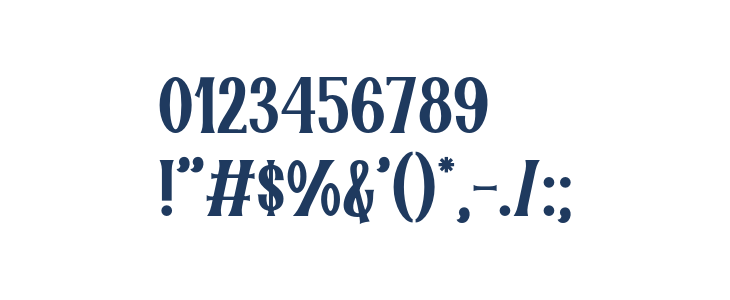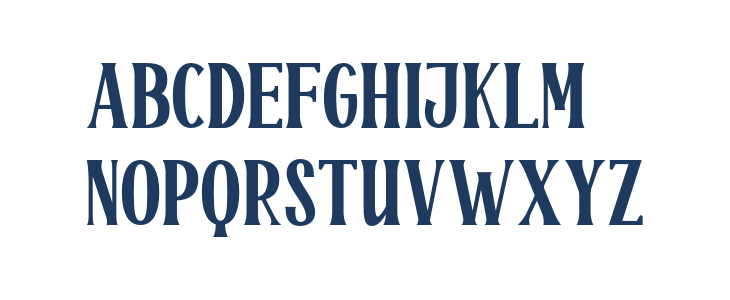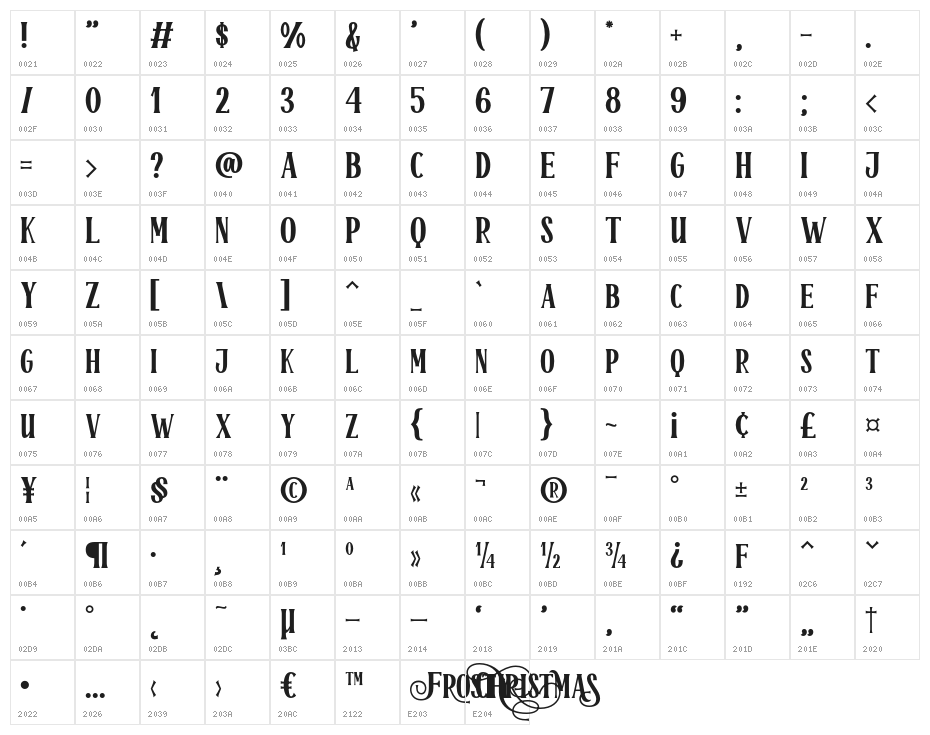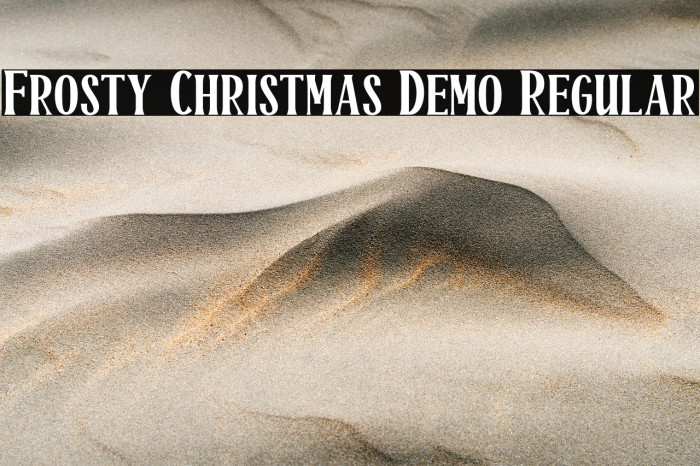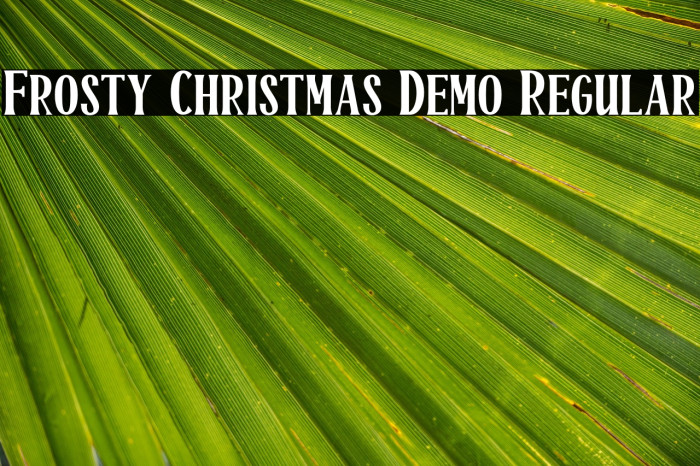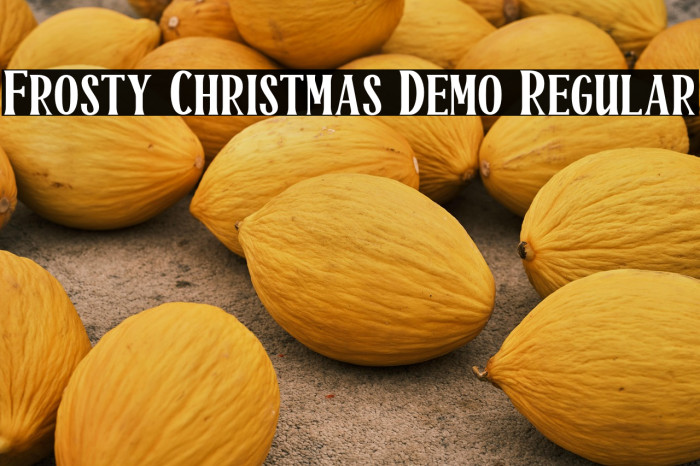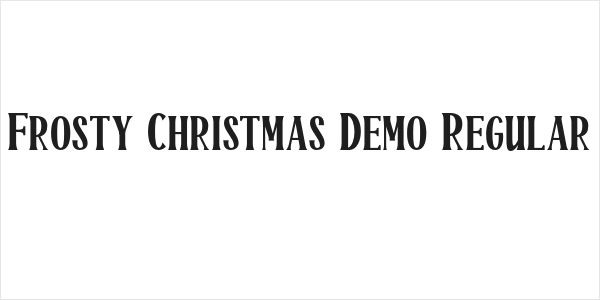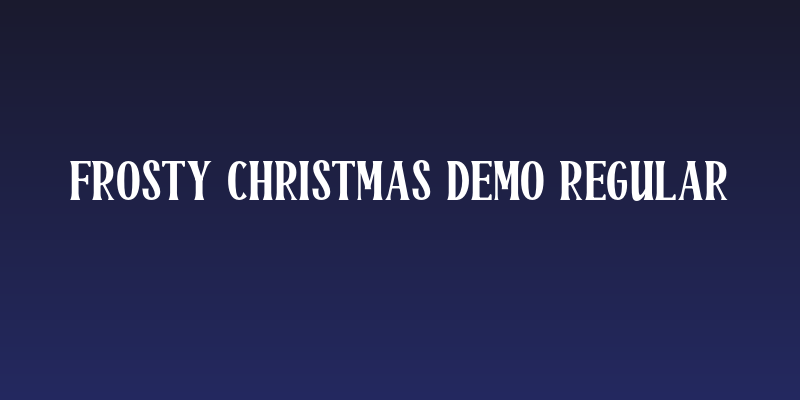
Frosty Christmas Demo Regular Font
Frosty Christmas Demo Regular Description
A decorative display font with high contrast between thick and thin strokes, featuring playful, whimsical serifs and a festive, slightly vintage appearance. The letterforms are tall with dramatic curves and unique stylistic elements, especially in the uppercase characters.
| Overall Style | Decorative, Vintage, Festive |
| Use Case | Headlines, Posters, Logos, Invitations |
| Proposed Projects | Holiday cards, event posters, festive branding, seasonal packaging, invitations. |